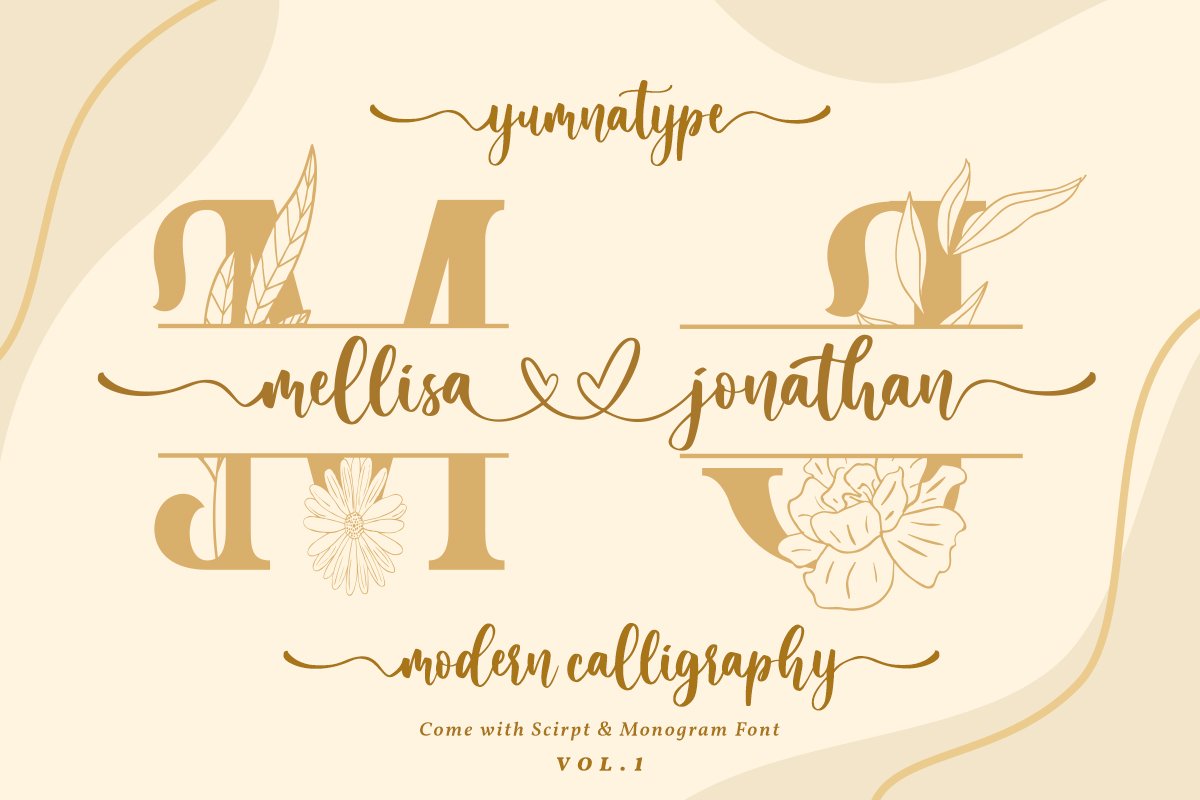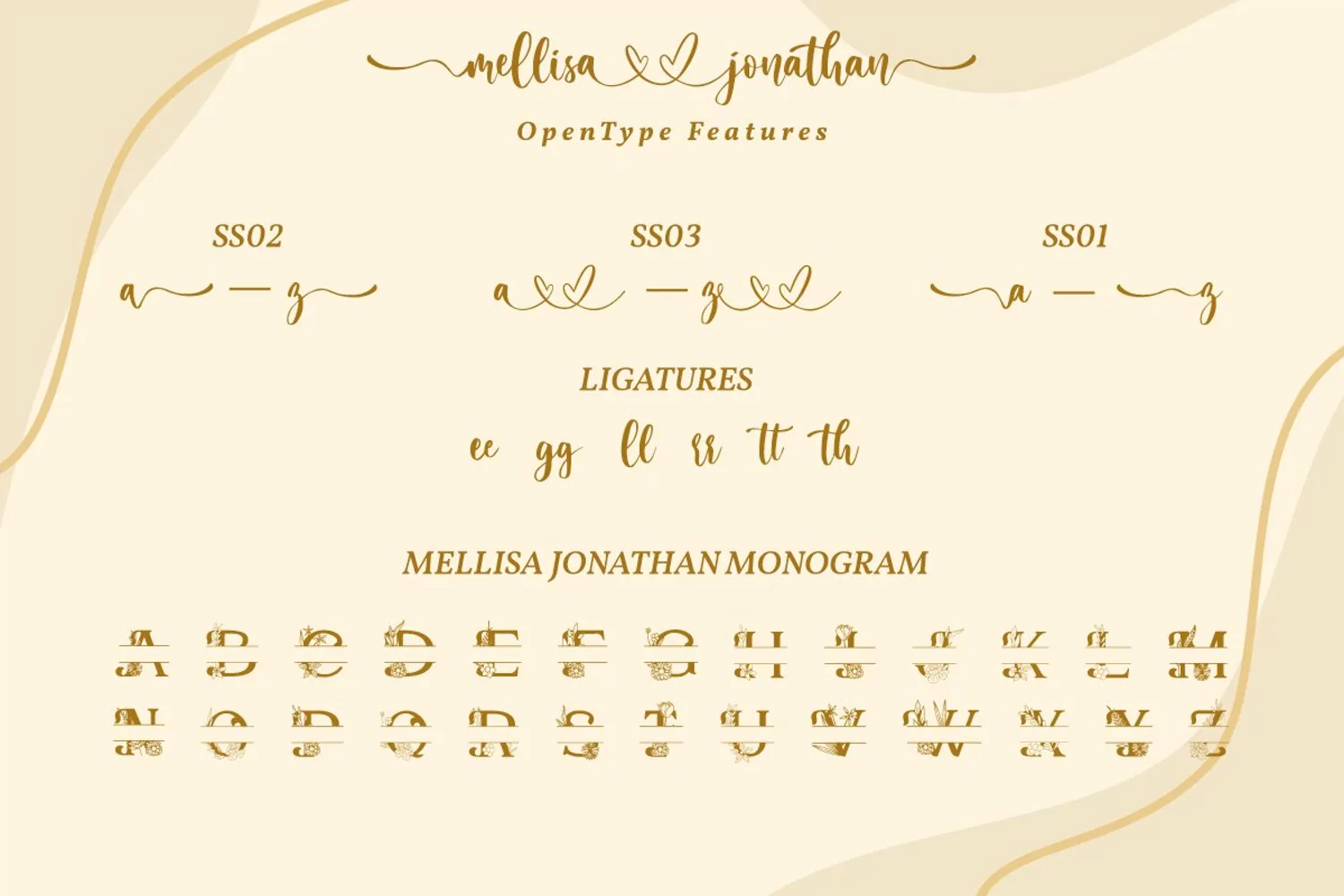
Mellisa Jonathan Vol.1
Say hello to Mellisa Jonathan Script.
Mellisa Jonathan  is a beautiful wedding font.
It brings a beautiful and modern typeface that best used for weddings, branding, logotype, and quotes.:
-  Mellisa Jonathan Vol. 1
-  Mellisa Jonathan Split Monogram
• Beautiful Alternates + Swashes
• Numerals and Punctuation
• Beginning Swash and  Ending Swashes (a-z)